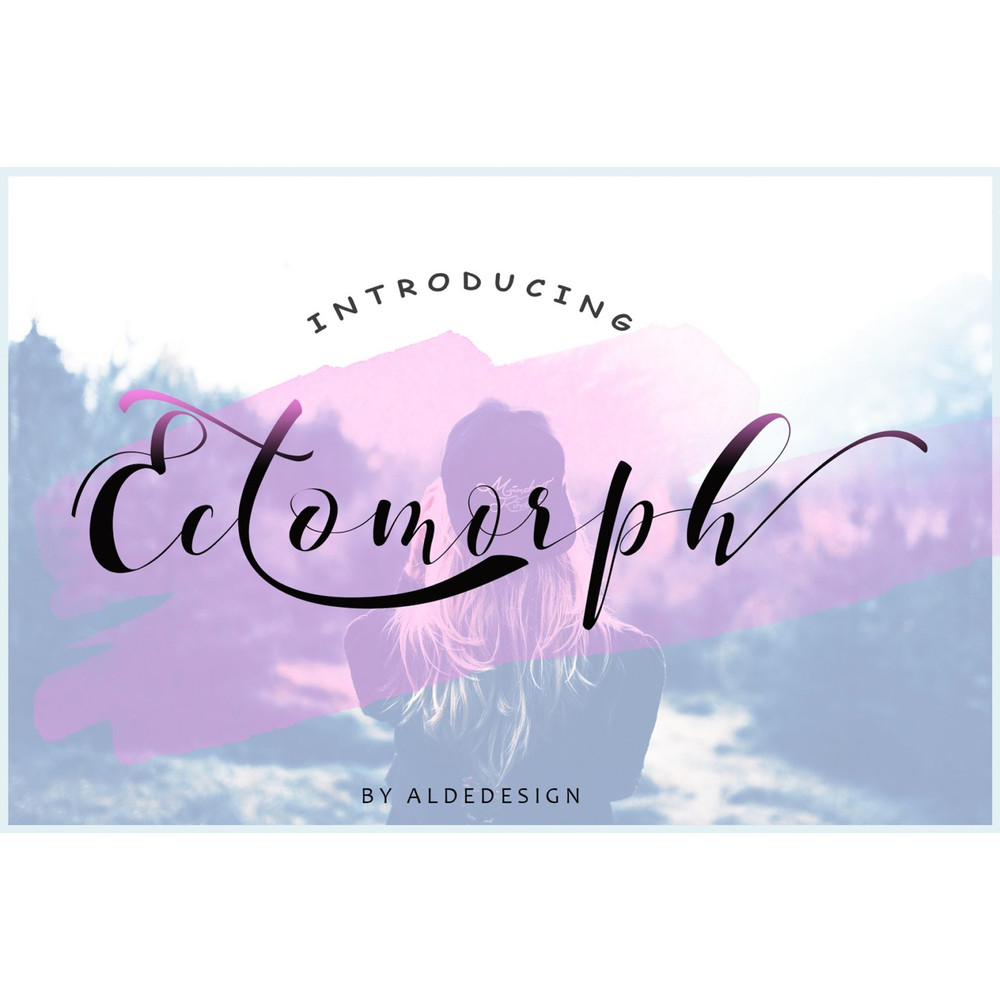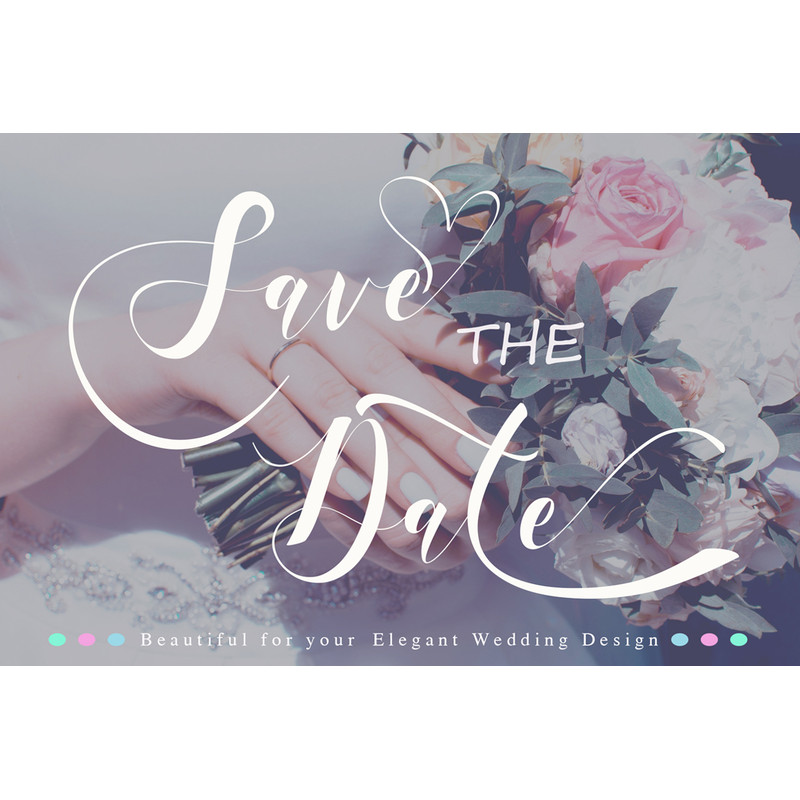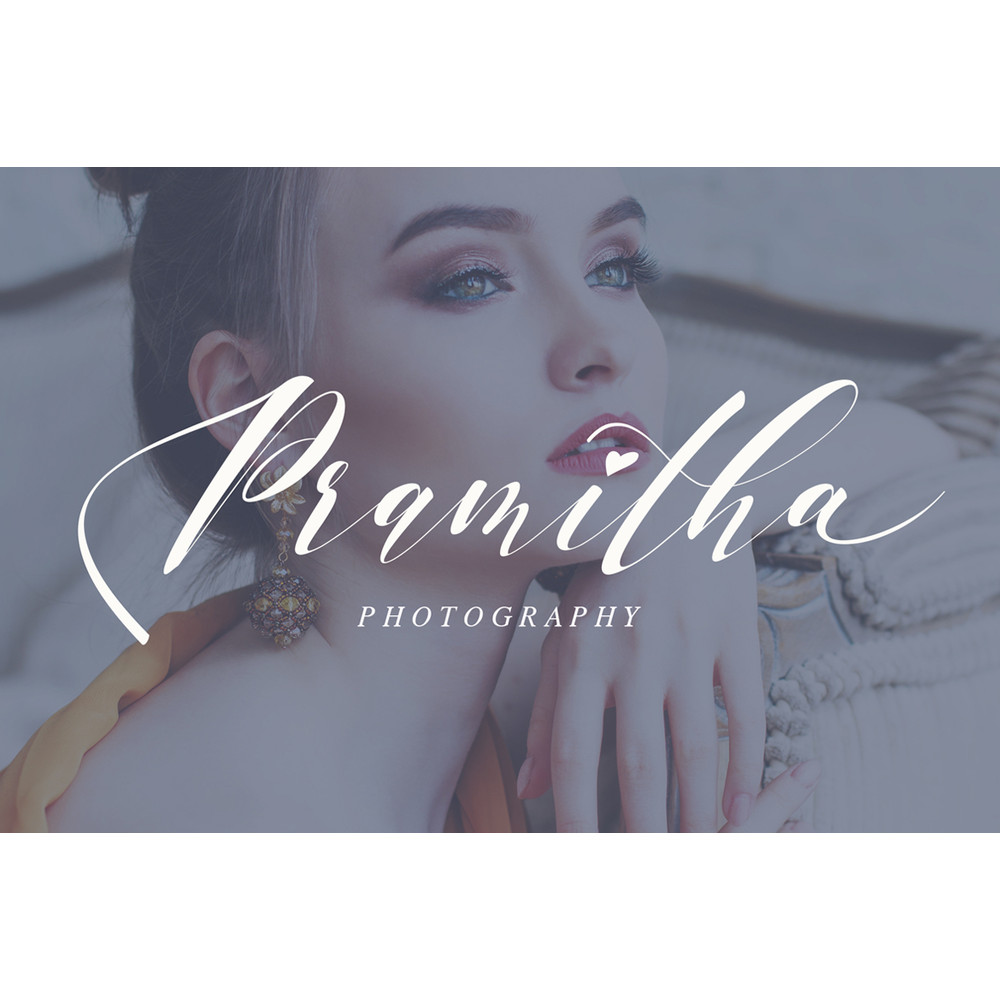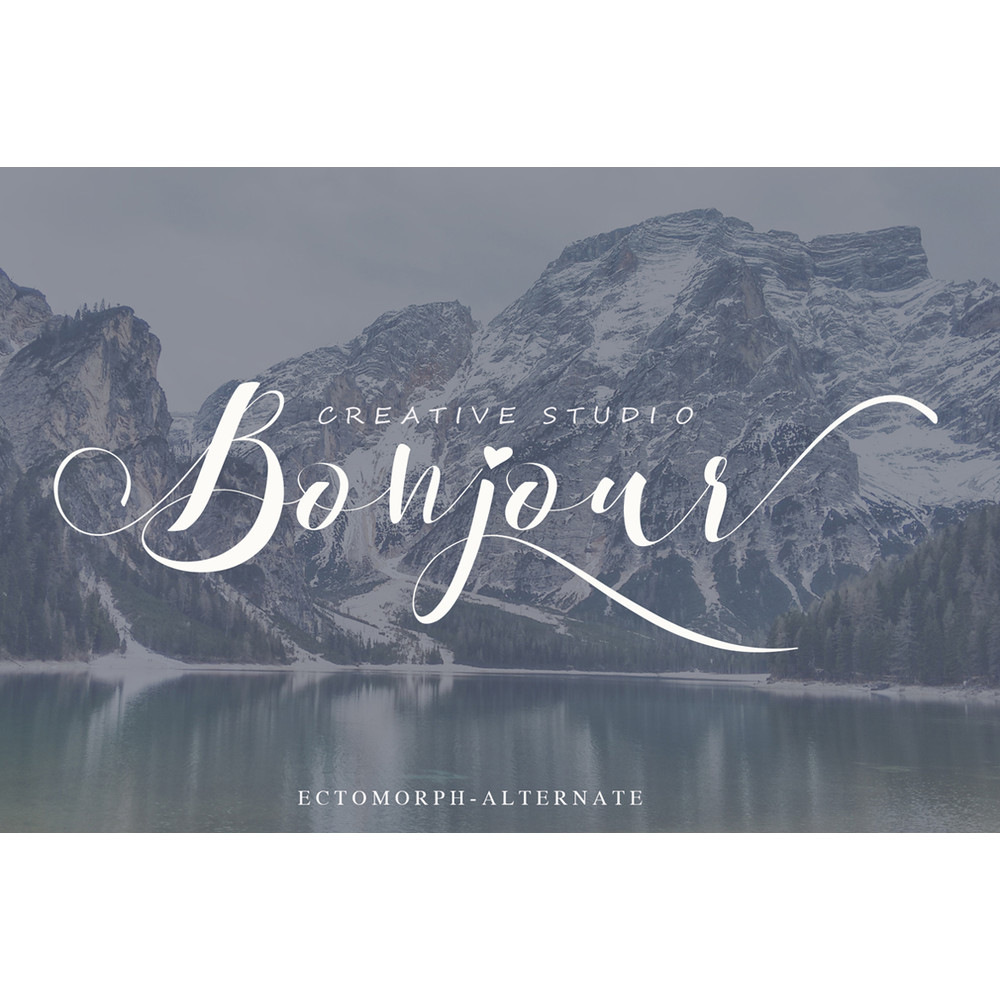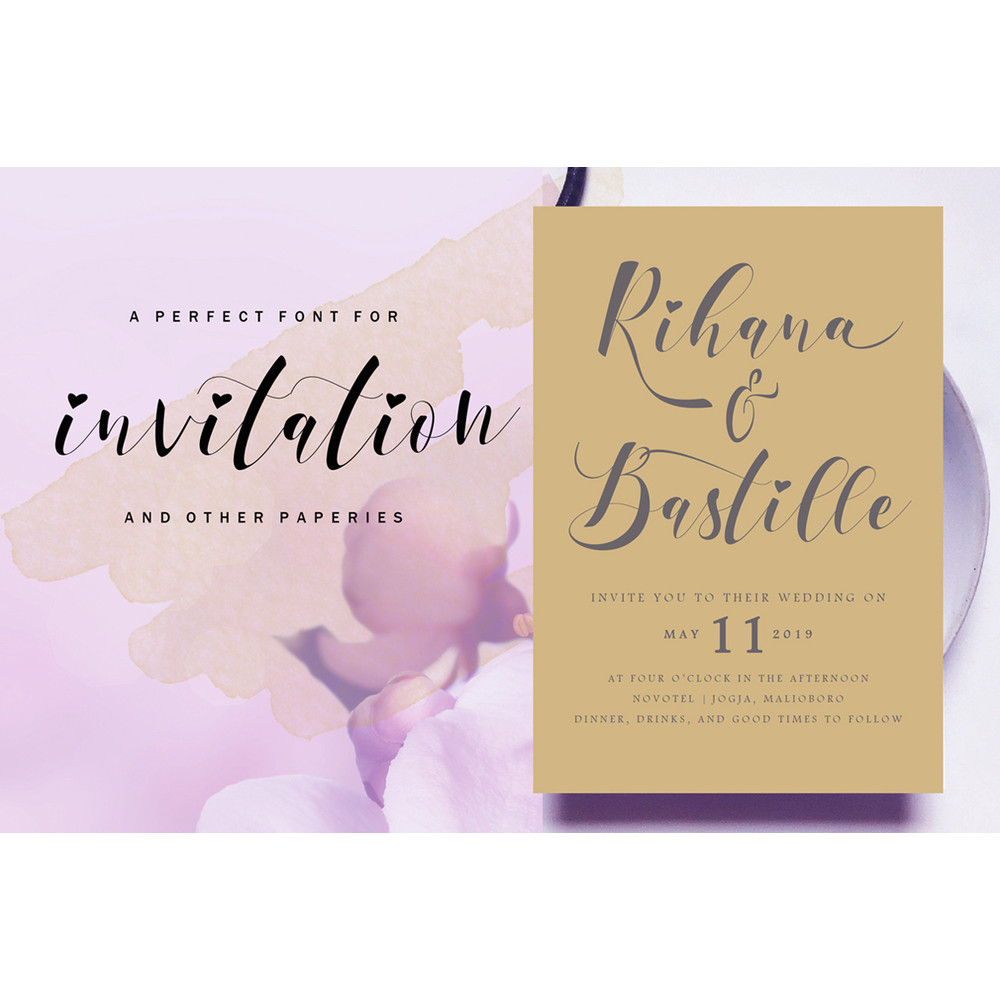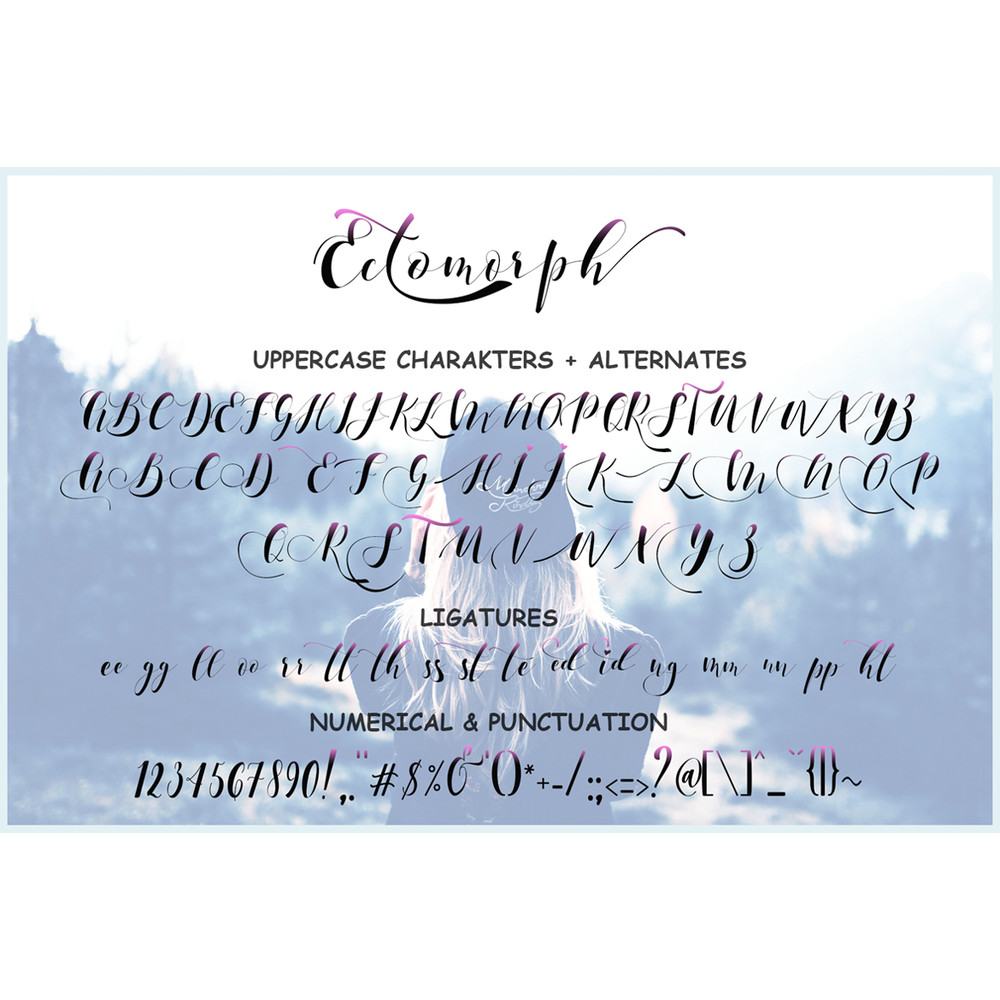
Ectomorph Script Font is a beautiful script made by depth love. Ectomorph with natural handwriting touch is suitable for you who needs a typeface for Headline, Apparel, Invitation, Branding, Wedding, Logo Design, Lettering, Logotype, Clothing, Poster, Magazine and another design project, t-shirt, letterhead, signage, labels, news, posters, badges, etc.